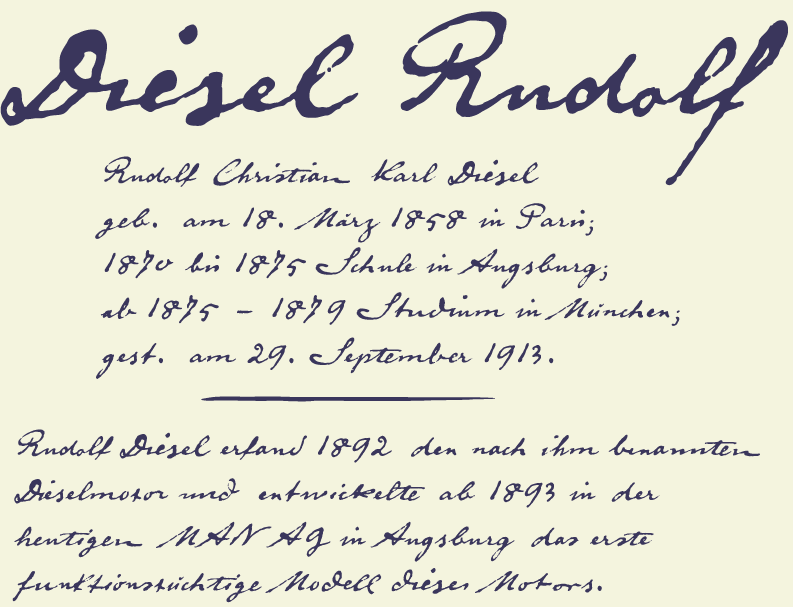
Write like the inventor of the diesel engine – it’s possible with the Diesel Rudolf Script (patterned after the original handwriting of Rudolf Diesel)... The engineer and inventor Rudolf Diesel was born in Paris in 1858 and also went to school there. In1870 his family moved to England and Rudolf was sent to relatives in Augsburg where he continued going to school. Later, after completing his studies in Munich, he began working as an engineer in the machine factory Linde. Alone this part of his life makes clear why Rudolf Diesel’s handwriting was so “jerky,” hesitant and inconsistent. He learned to write according to the French style, that is, Latin cursive – completely different from the very correct and neat German handwriting taught at that time which he had to learn at 13 years of age. These circumstances explain why his handwriting is “messy” (especially for those days) with its mixtures of letter forms within a text, even within individual words. Plus, he obviously did not attach much importance to “pretty writing.” Sometimes the characters are wide, then narrow, sometimes large and clear and then again crammed and primitive. The individuality is emphasized with characteristics derived from quill and ink. At ingoFonts all fonts can be downloaded. Gratis. Free. Here's the catch: The files offered here to download contain only a reduced font. That means, the font only consists of uppercase and lowercase from A to Z or rather, a to z. The complete font including numerals, umlauts, punctuation and especially ligatures is only available with your order and your cash. |